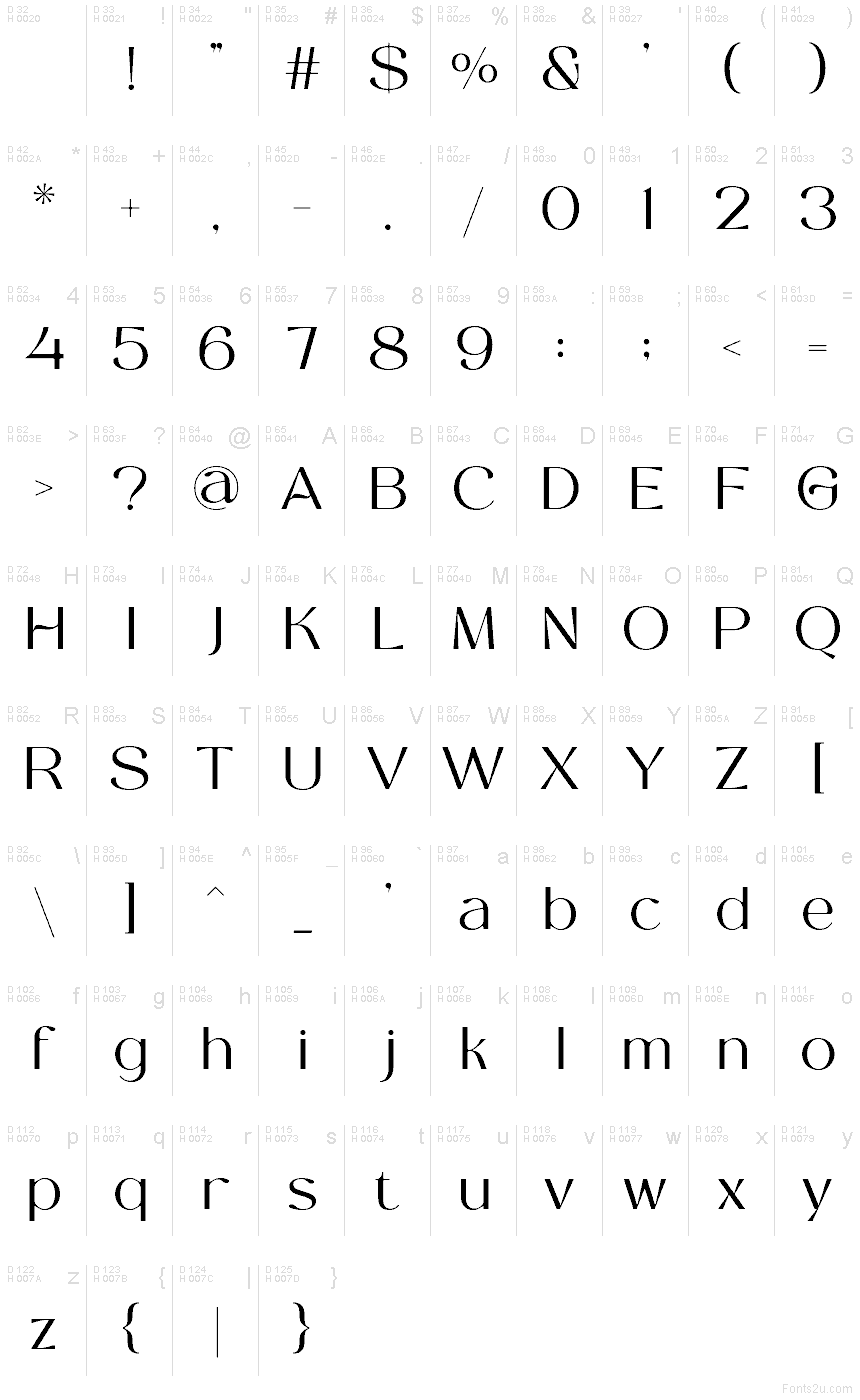
Hasweny
Hasweny font by BrandSemut is a free modern serif typeface that feels like ink pulled tight across the page—sleek, refined, and slightly dramatic. Slim verticals, sculpted curves, and razor-clean cuts give every word a couture edge, like a fashion label tag or a glossy masthead. There’s a graceful flow to the letters that stays sharp, so your typography looks polished rather than fussy.
Using Hasweny, headlines and short phrases instantly gain a luxe, editorial presence that works beautifully for branding, packaging, magazine layouts, posters, social media graphics, and invitations. This free font shines at larger sizes, where its fine details can breathe; pair it with a plain geometric sans for body copy to keep the spotlight on Hasweny’s elegant shapes.